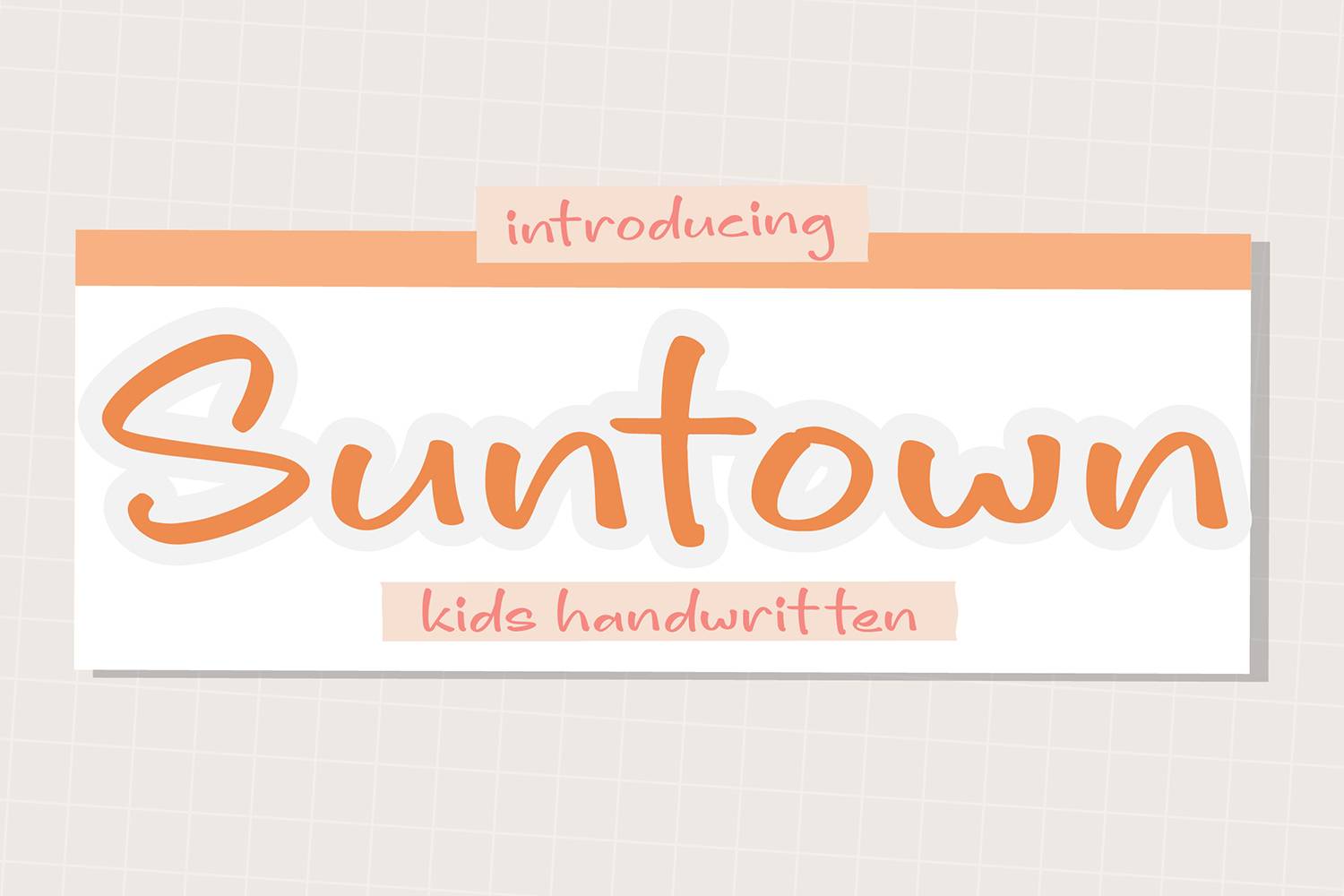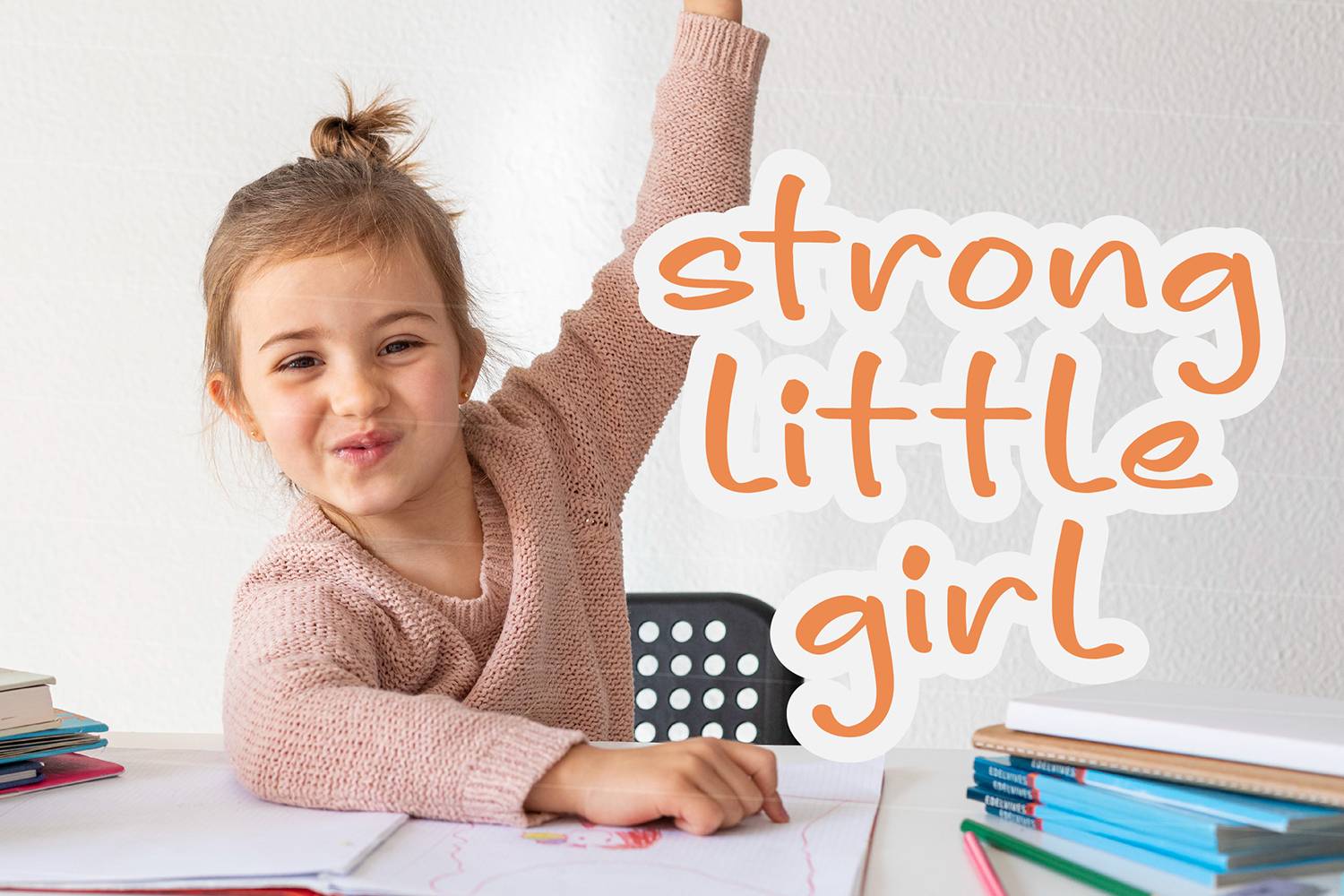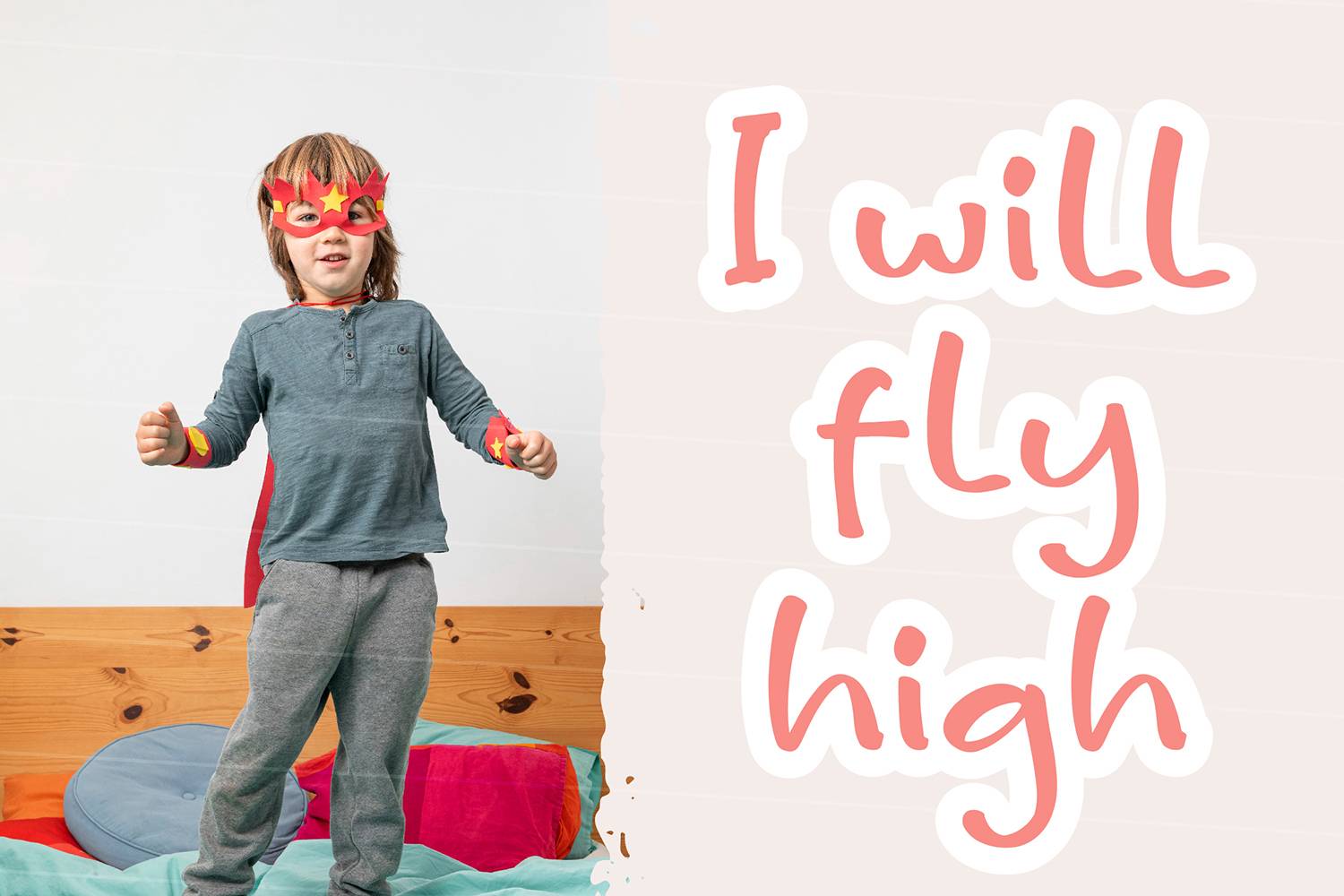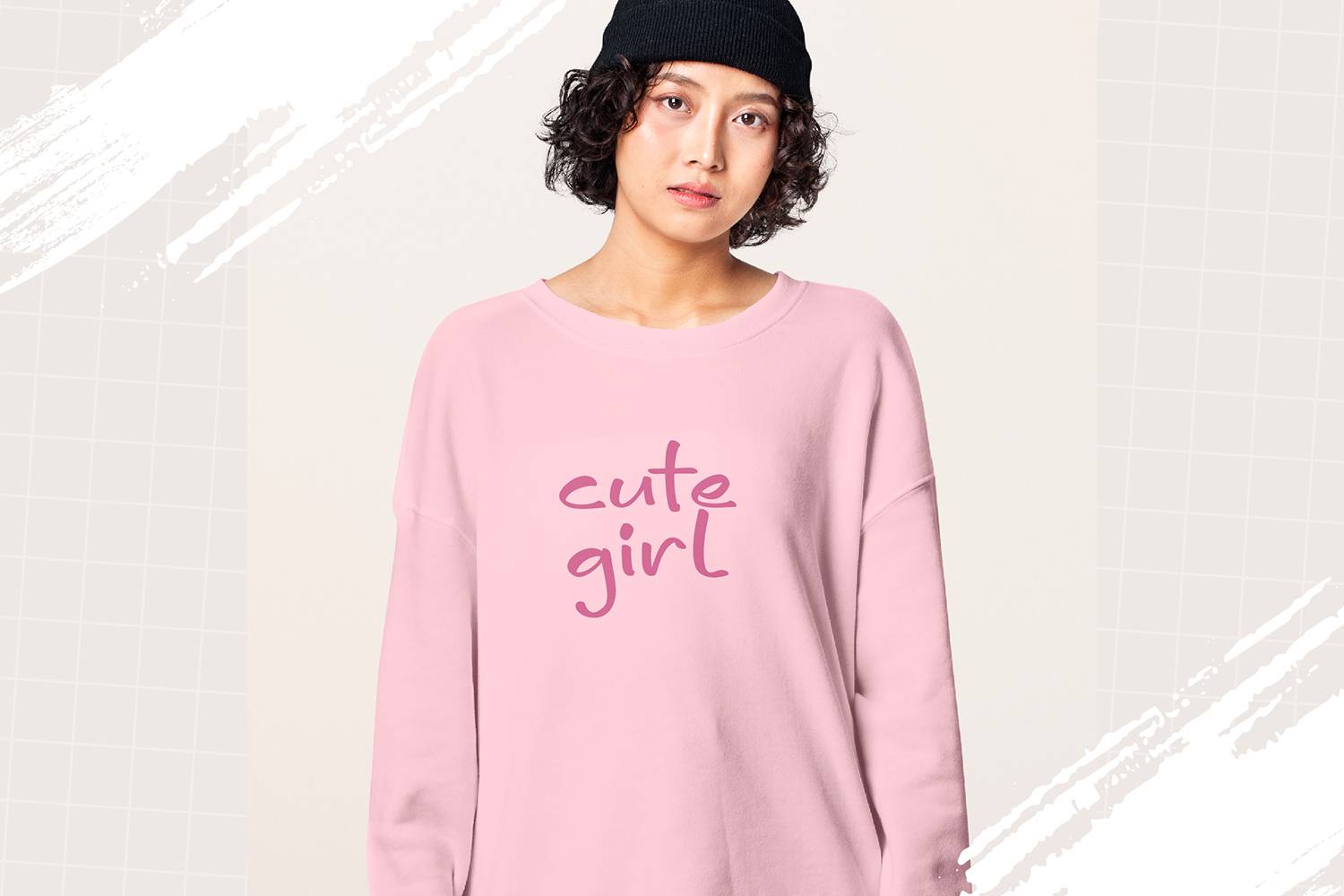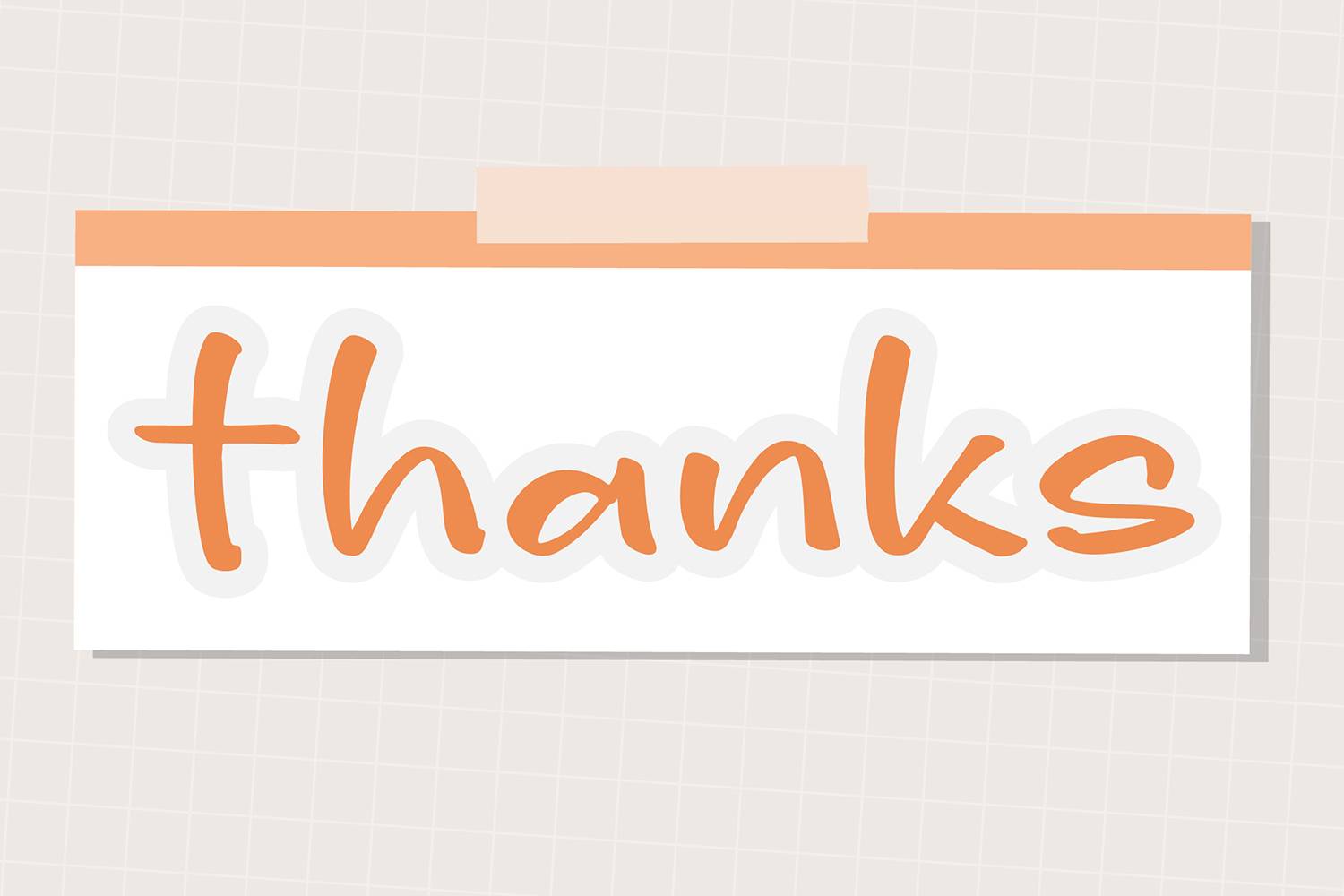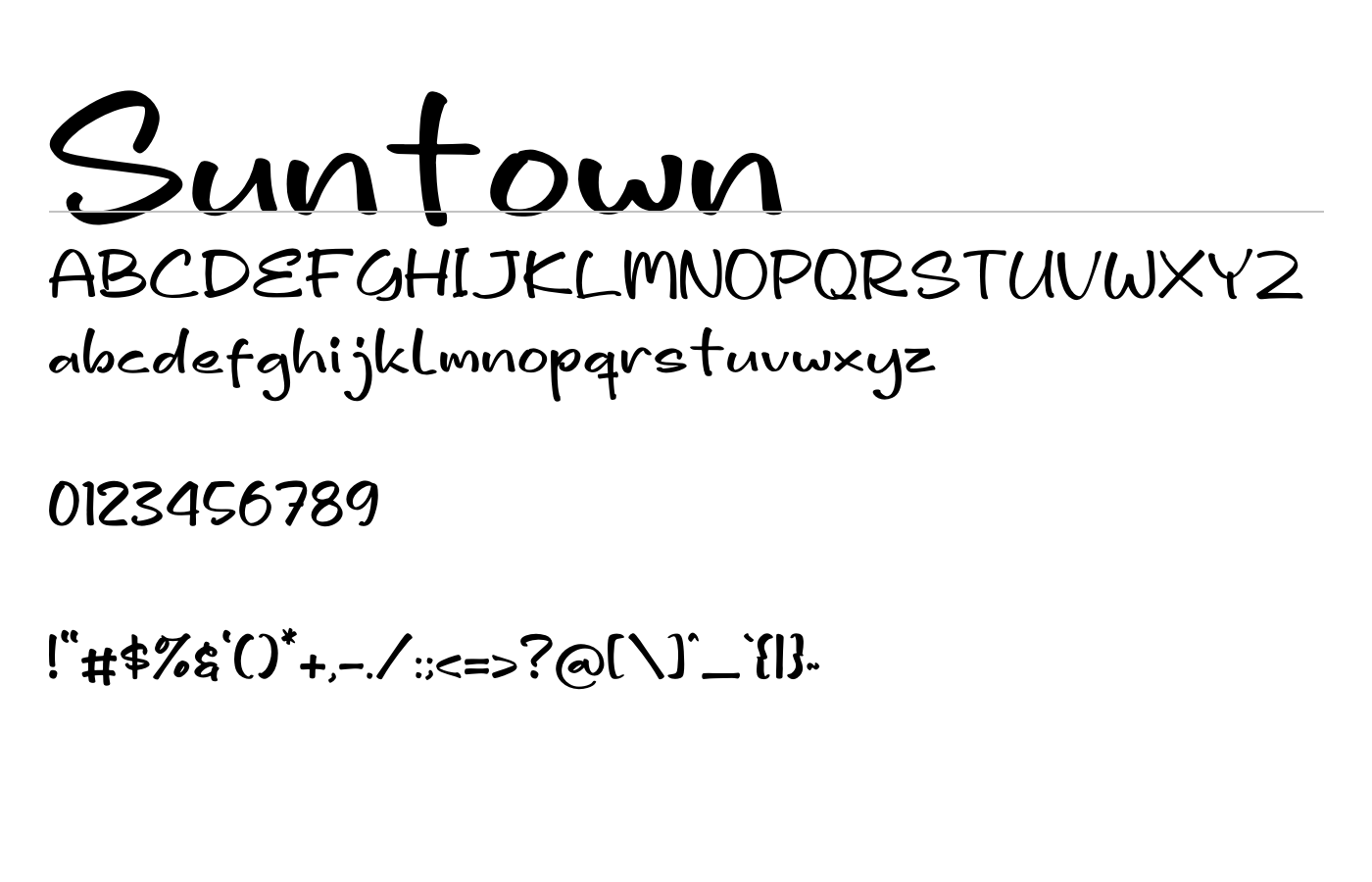
Suntown is a casual, handwritten sans serif font that offers a friendly and approachable vibe with its smooth, slightly irregular strokes and moderate x-height. Its light weight and open spacing make it ideal for informal designs such as personal branding, social media graphics, or creative packaging where a warm, human touch is desired. This font works well for headlines and short texts that need a playful yet clear and natural look.
Suntown Font
About Suntown Font